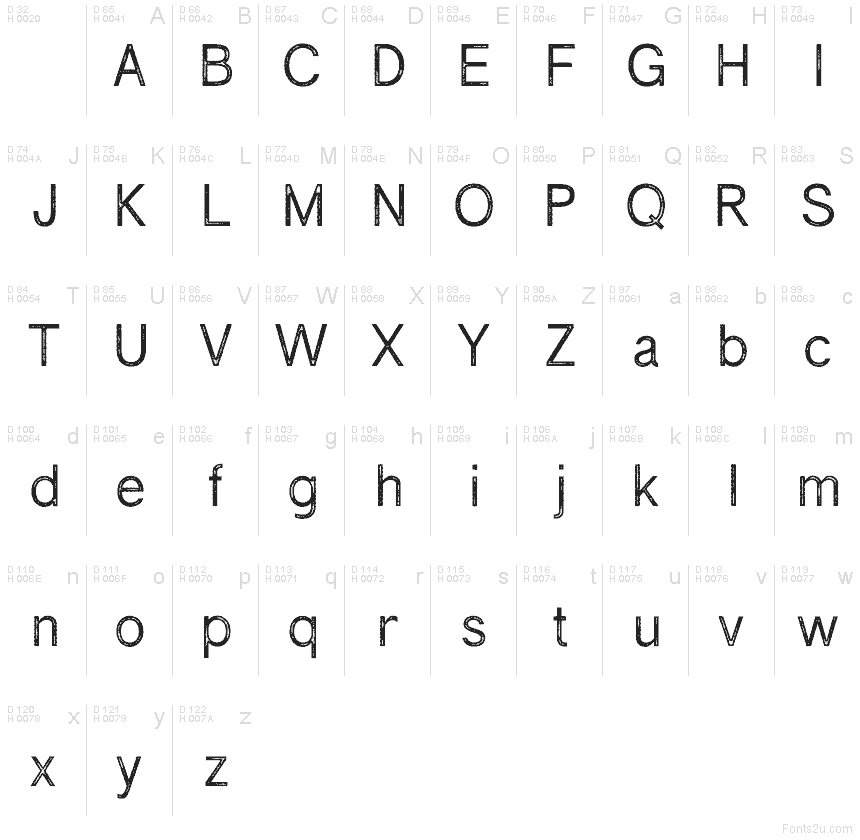
Lupina Stamp Regular Demo
Lupina Stamp font by Craft Supply Co. is a rugged, sans serif with a distressed modern appearance. Influenced by the texture of old printmaking methods, this typeface mimics an eroded canvas of minimalistic letters. Untamed natural shapes intertwine in an organic feel to create casual yet authentic typography appropriate for different design projects.
The free display font’s appearance is in synergy with beer labels, packaging designs, advertising posters, comic and typographic panels, and signage designs. With its rustic style, it is suitable for restaurant menus, favorite shop branding and storefronts as well as social media fonts for Instagram or other platforms app.